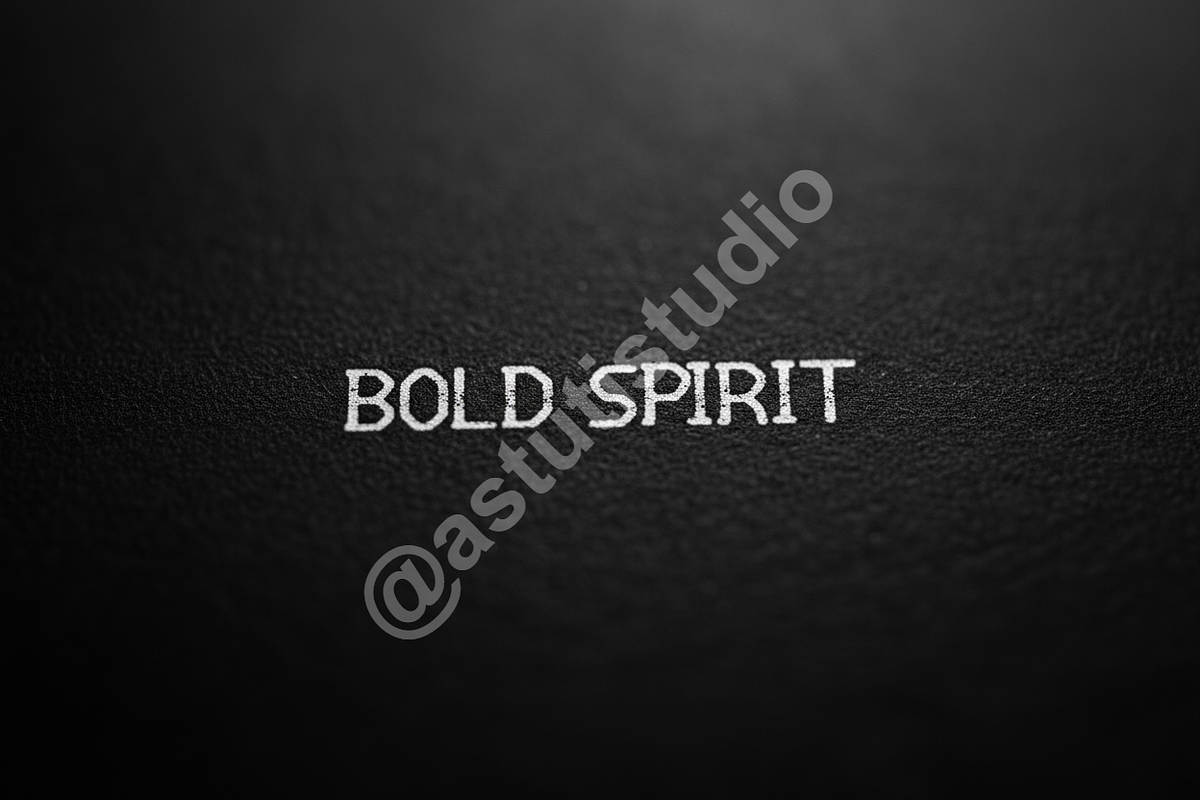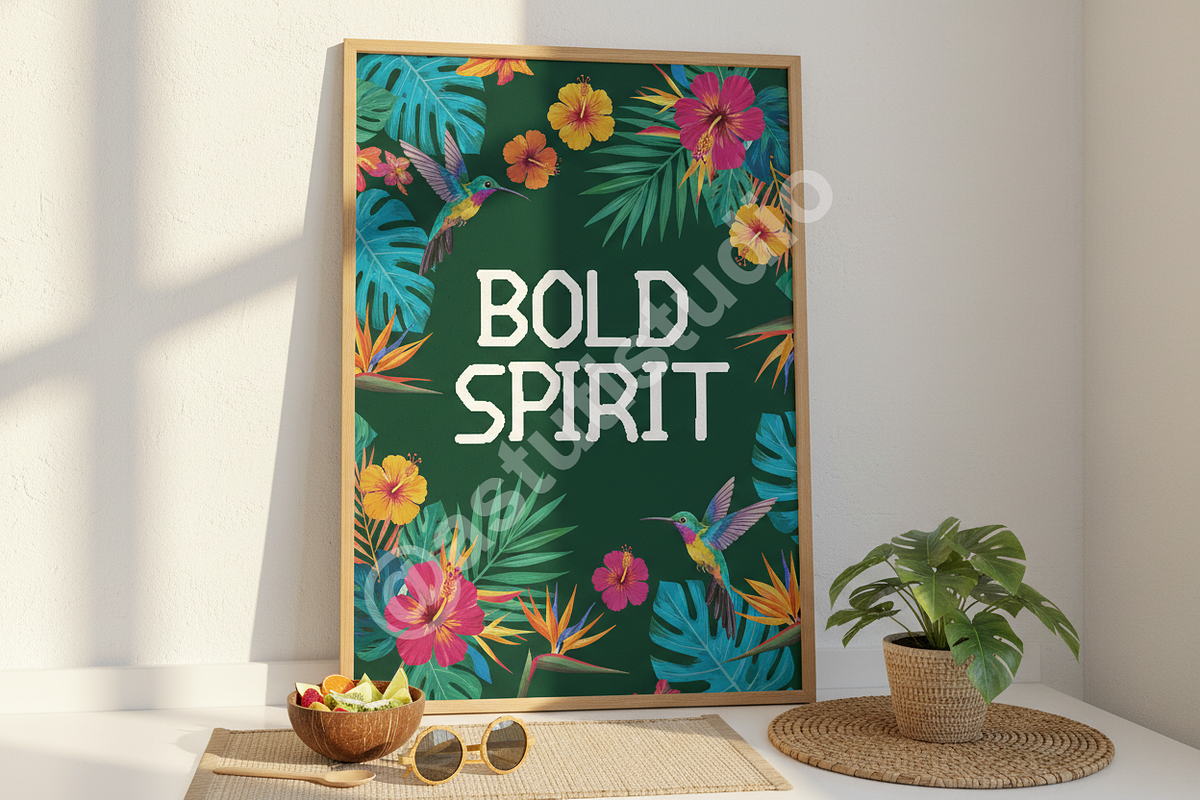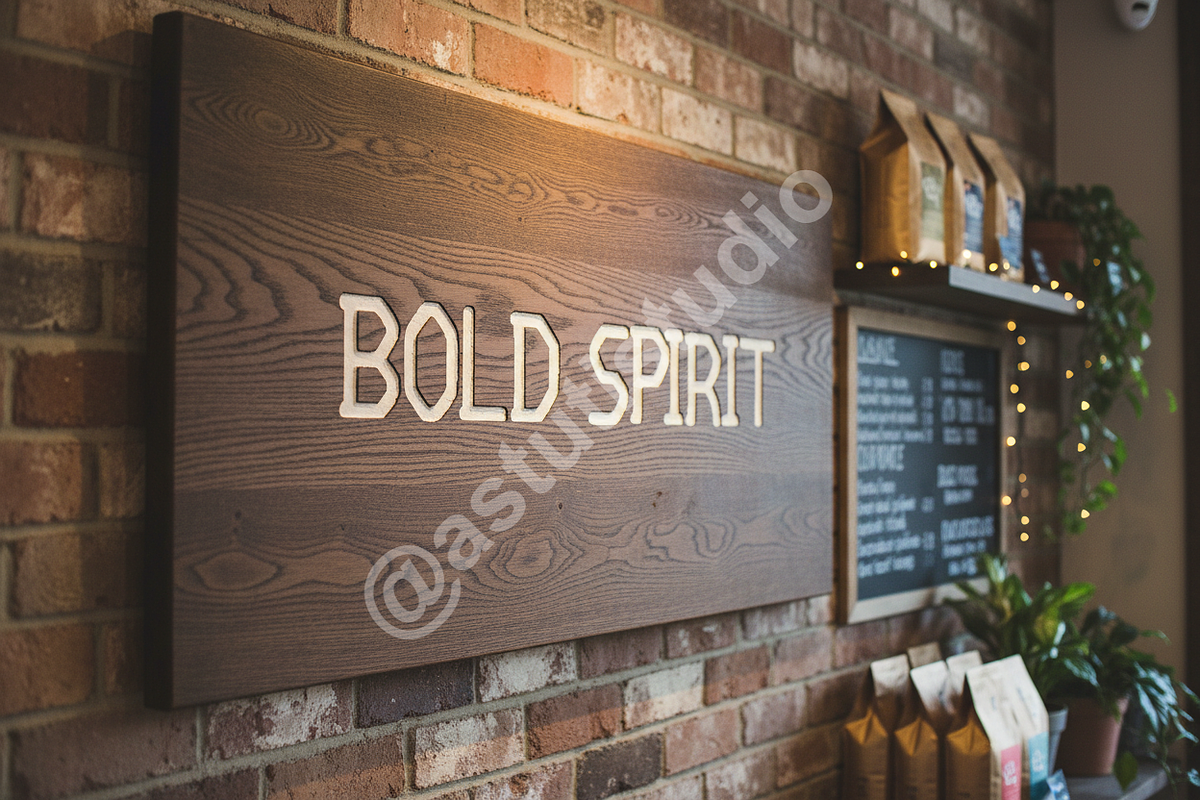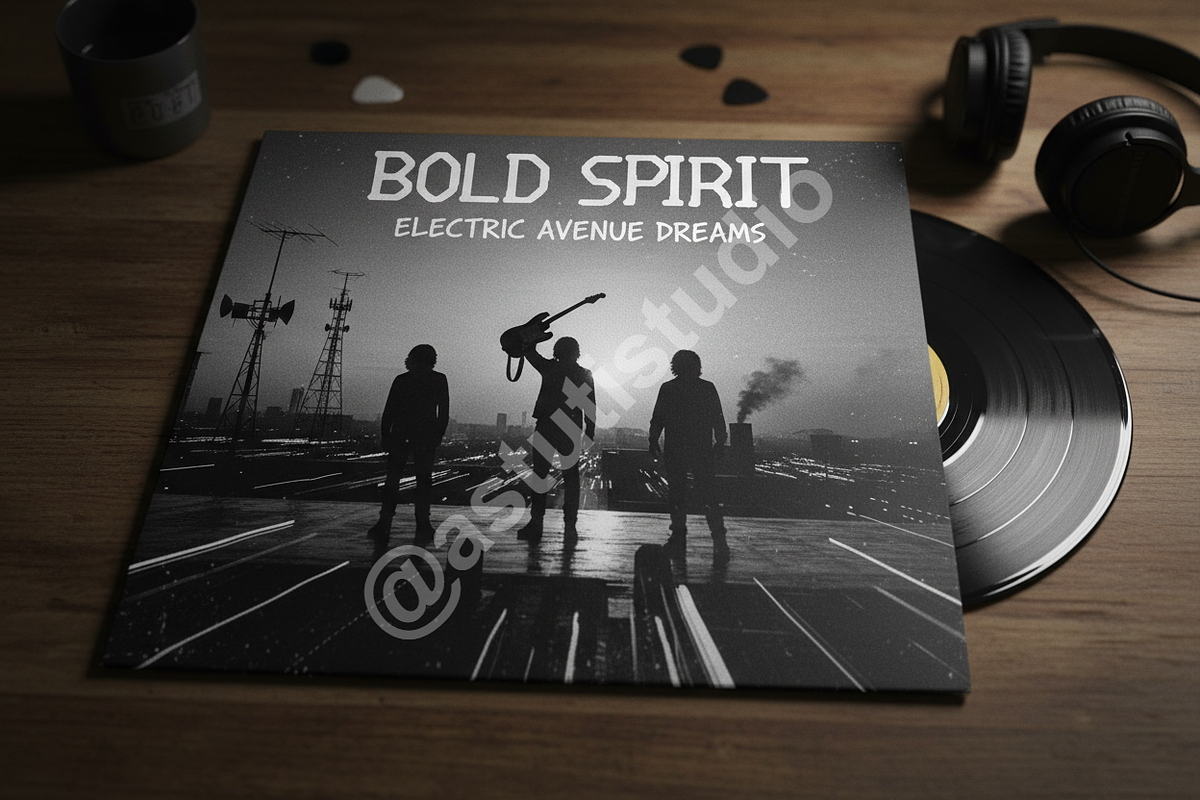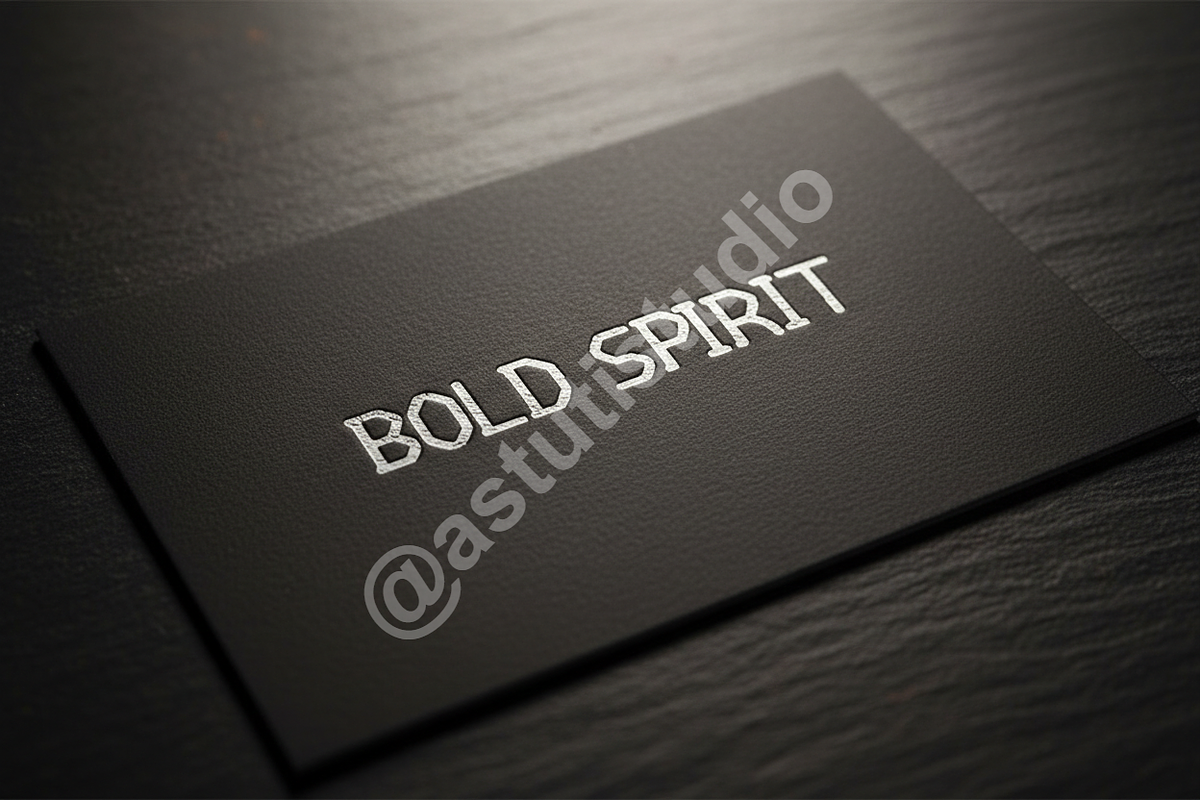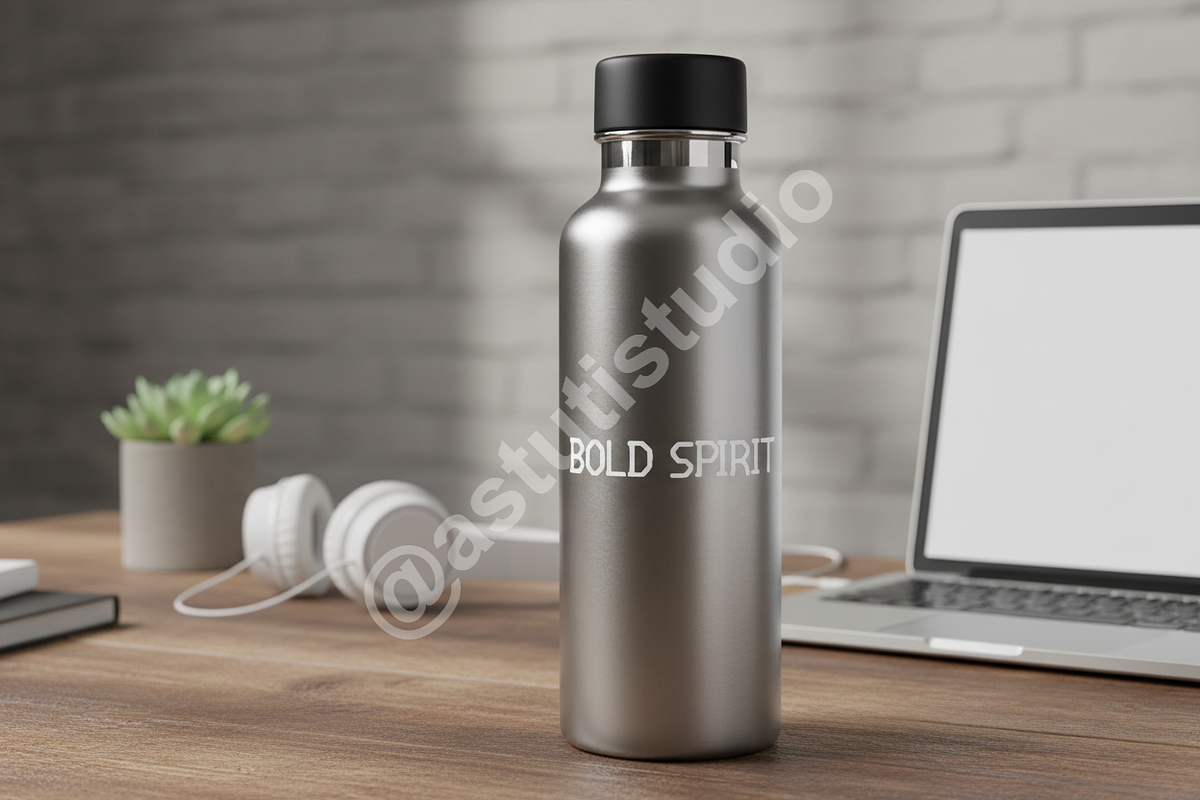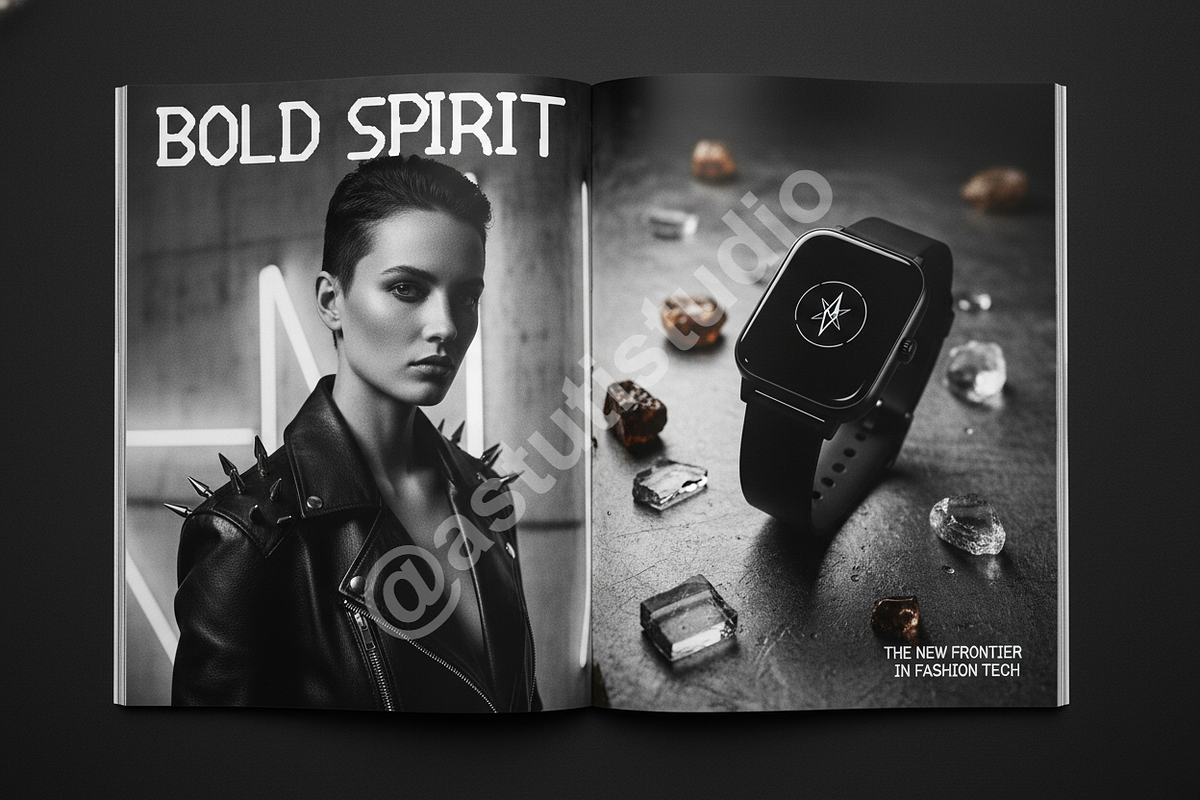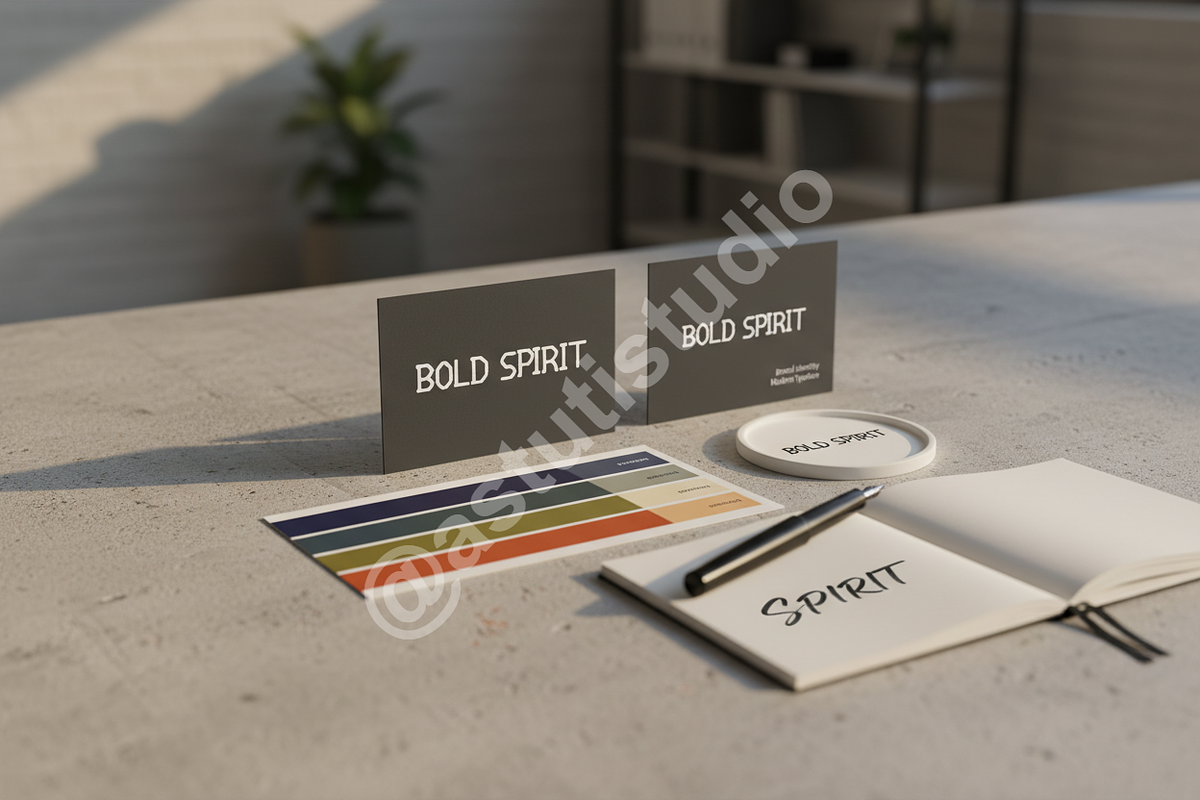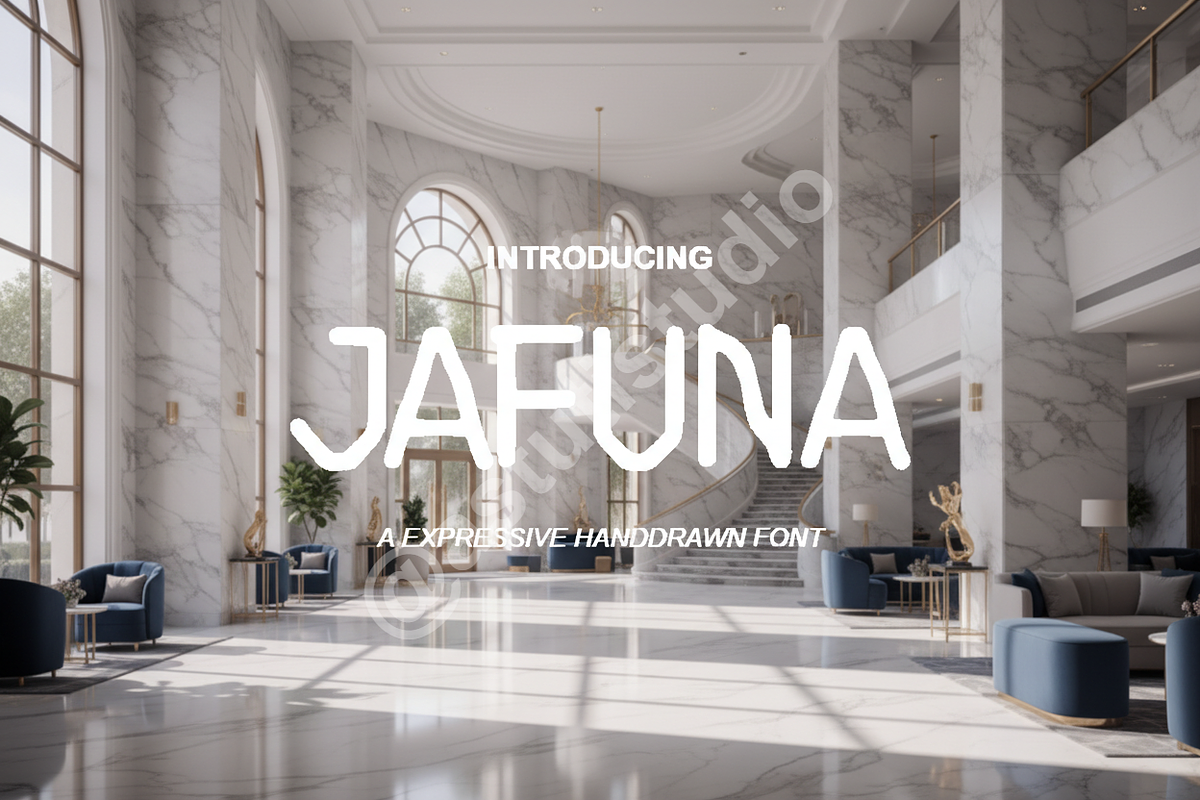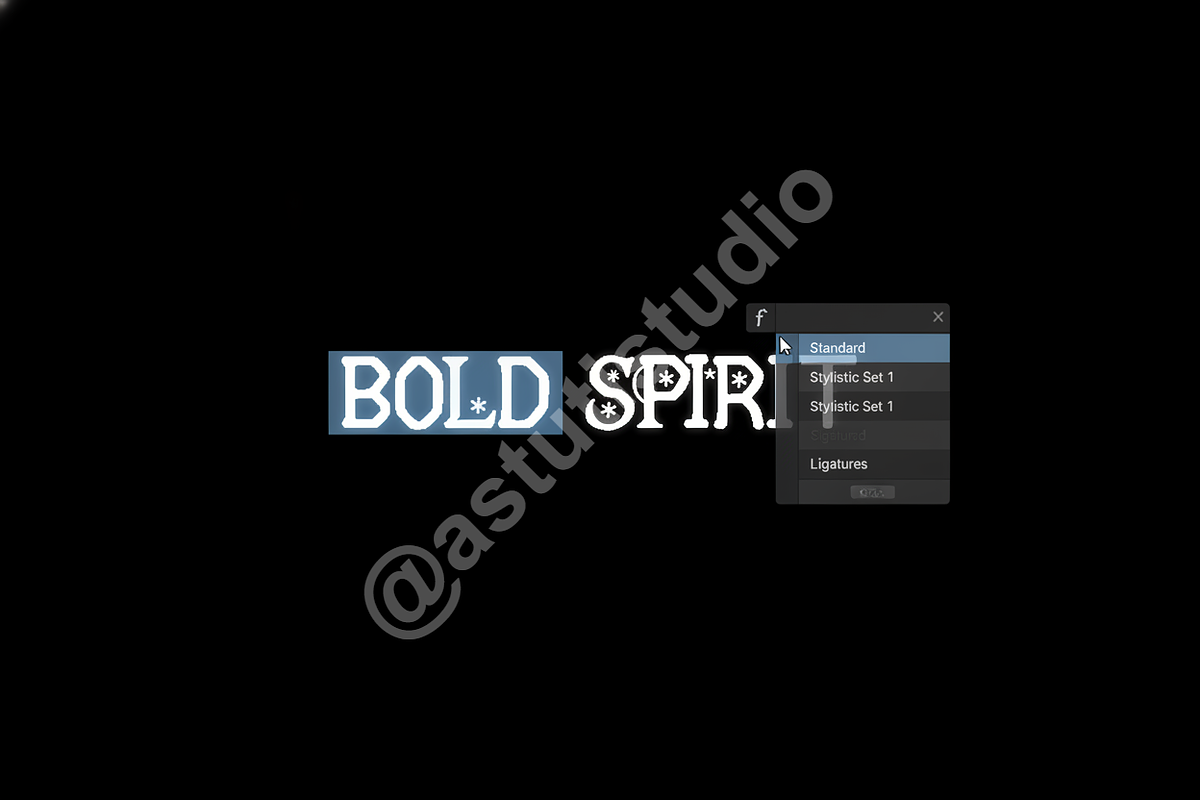
Jafuna - A Sophisticated Modern Seri
INTRODUCTION Jafuna is a meticulously crafted serif typeface that embodies modern luxury and refined elegance. With its balanced proportions and high-contrast letterforms, Jafuna is designed to bring a premium aesthetic to any creative project, ensuring your work stands out with timeless grace.
- Elegant high-contrast strokes for a luxury feel
- Unique discretionary ligatures for custom flourishes
- Stylistic alternates for specific character variations
- Full multilingual support for global projects
- Precise kerning for professional-grade typesetting
IDEAL FOR
- Luxury branding and corporate identity systems
- High-end editorial and magazine layouts
- Sophisticated social media content and digital marketing
- Minimalist logo design and premium stationery